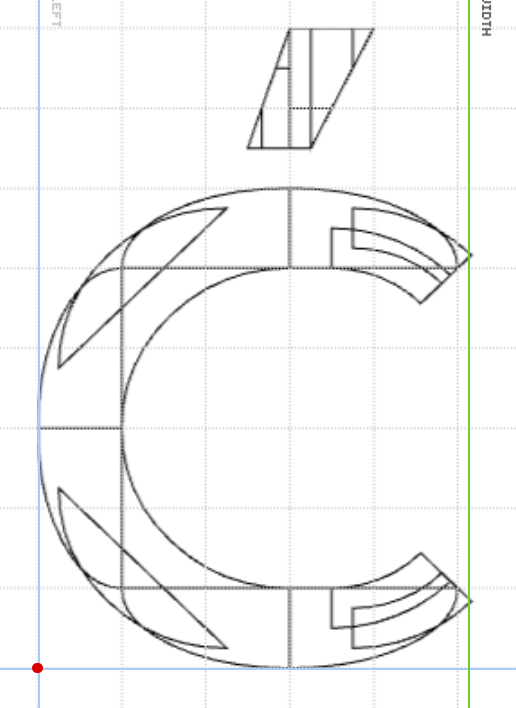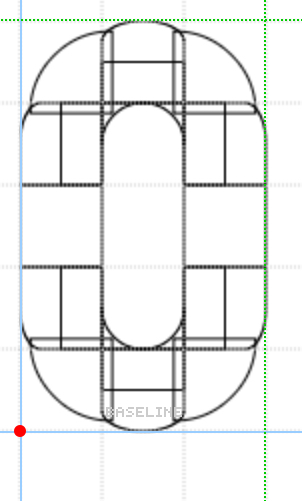
Of course people thought about interpolating curves and some even shared examples how to do it. I suggest, study these two gifts from Sed4tives
Perhaps you could take inspiration from Poznań?
I used 2x2 filters, as I always do.
Have you guys even tried implementing curves like this?
LOLOL, whats that curve type called? —Must be something along the lines of, "cloud-pillow" rotund, "speed-bump" curve or  plain simple "wobble" instead of "curve".
Could be usefull for someone who is planning on making a decorative style lettering with a clouds or floral theme to it,  or perhaps something "whip cream" related.
#pies, tarts and pudding-font
lol, yeah you should check out the FS-tools I have shared in the past.. thats all you need to get u started!
Circular parts or "arc segments"  with a chordal distance of (1 × 2),  (2 × 2), (1 × 3), (2 × 3) or  (3 × 3)  grid units is somewhat childsplay.
I know that for many new and fresh Fontstructors this whole "curved" letter geometry seems to feel like this forbidden fruit, or the "holy grail" in fontstructing.
And although never Fontstruct's first intended aim, to be a tool that would even remotely resemble a tool that would be used for approximating real curves. At first glance this very limited "round" stock bricks provided in brick-palette it might even appears that indeed this isn't, especially to any new users. But to just say that there is a lot more that can be achieved would be somewhat of a understatement. And the grid might even surprise you.
But when the editor is then also combined with the filters settings and modified composite bricks, suddenly Fontstruct begins opening up its true personality.
—For some of my more  experimental endeavours in approximating near (true) Bézier smooth curved letter-geometry I think (7 × 5)  is about the furthest I so far was able to stretch this.
Most important rule of thumb is this: More bulk (or weight, body) a letter component or segments the more there is to pull-off tricks and crazy impossible modifications.
Trust me, when you squint your eyes the curve is visible
And your 3-pixel circle is ugly and you're just jealous
No doubt...